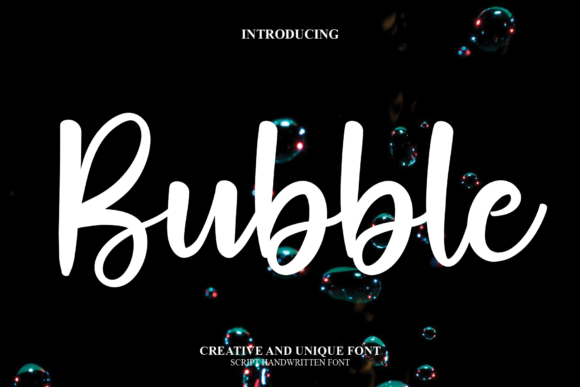
Getting Lost in the Beauty of Handwritten Fonts
Have you ever found yourself scribbling away in a notebook, trying to capture the perfect script for your next project? The flow of ink onto the page, the curves and swirls of your handwriting – it’s a truly magical experience. As designers, we’re constantly on the lookout for fonts that evoke this same sense of whimsy and personality.
Enter the Bubble Font, a sweet and bold handwritten font that’s sure to capture your heart. With its beautiful curves and playful flair, this font is perfect for designers looking to add a touch of warmth and character to their work. And with its PUA coding, you’ll have access to all the glyphs and swashes you need to really make your designs pop.
Whether you’re working on a branding project, a wedding invitation, or a social media campaign, the Bubble Font is a valuable addition to any designer’s toolkit. Its versatility and charm make it a great choice for a wide range of projects, and its PUA coding means you can get creative without any hassle.
Bubble Font Key Features
- Font Type: A unique, hand-drawn font with rounded shapes and soft edges, perfect for creating a playful and whimsical atmosphere.
- Character Set: Includes a wide range of characters, including uppercase and lowercase letters, numbers, and punctuation marks, making it suitable for various design projects.
Bubble Font Review
I’ve had the chance to work with Bubble Font recently, and I must say it’s been a mixed bag. Here’s my honest review.
- Unique and playful style: Bubble Font has a distinct, whimsical feel that can add a lot of personality to your designs.
- Wide range of characters: The font includes a wide range of characters, including punctuation marks and numbers, which makes it a great option for body text.
- Readability issues: At smaller font sizes, the font can become difficult to read due to the rounded shapes and lack of clear letterforms.
- Not ideal for large blocks of text: The font’s playful nature makes it better suited for short phrases or titles, rather than large blocks of text.
Overall, I think Bubble Font is a great addition to any designer’s toolkit, but it’s best used in moderation. Its unique style can add a lot of visual interest to your designs, but it’s not a good choice for large blocks of text or situations where readability is crucial.
The Bubble Font is commonly used in:
- Infographics and data visualizations.
- Marketing materials and advertisements.
- Children’s books and educational materials.
- Web design and user interface (UI) elements.
Alternatives to Bubble Font for Designers
Great Vibes is a beautiful, handwritten script font perfect for creating a fun and playful atmosphere. It’s ideal for use in branding, advertising, and editorial design. Great Vibes is a bit more elegant than Bubble Font, with a more refined and sophisticated feel.
Pacifico is a clean and modern script font that works well for a variety of design applications, including logos, packaging, and web design. It’s a bit more formal than Bubble Font, but still has a relaxed, casual feel. Pacifico is a good choice when you want to convey a sense of calmness and serenity.